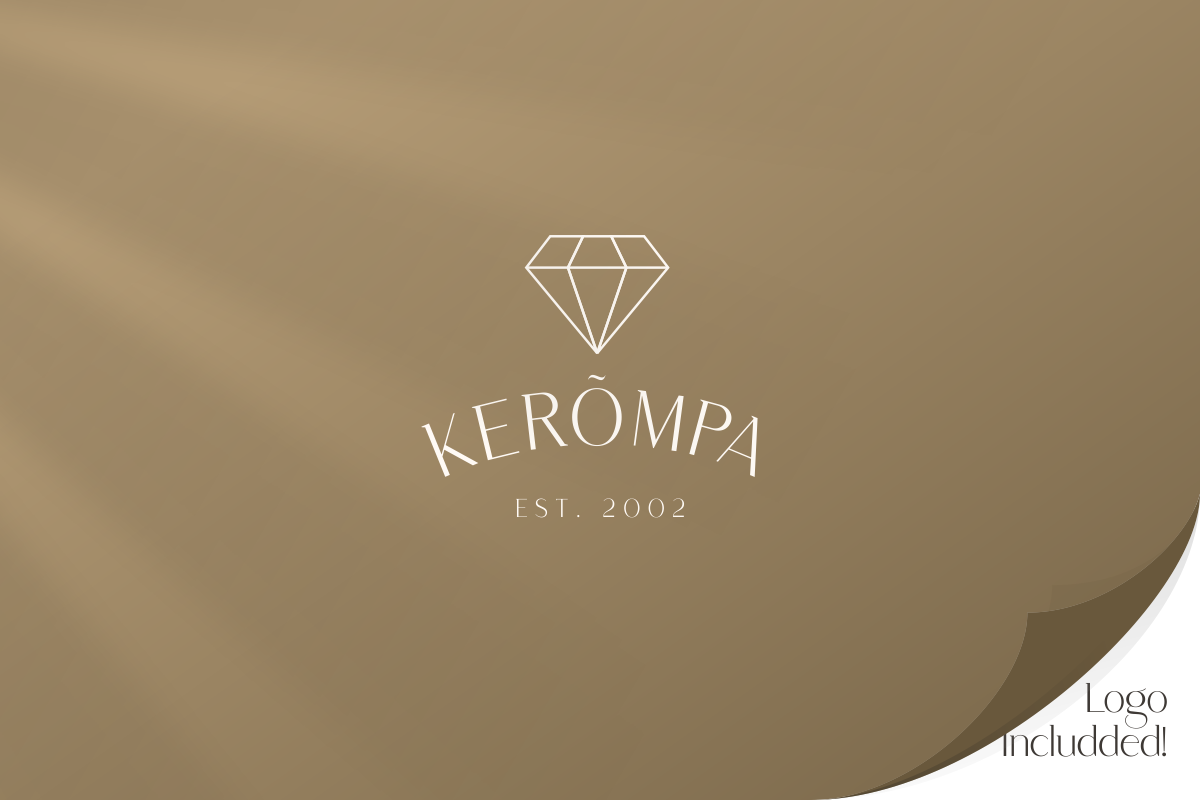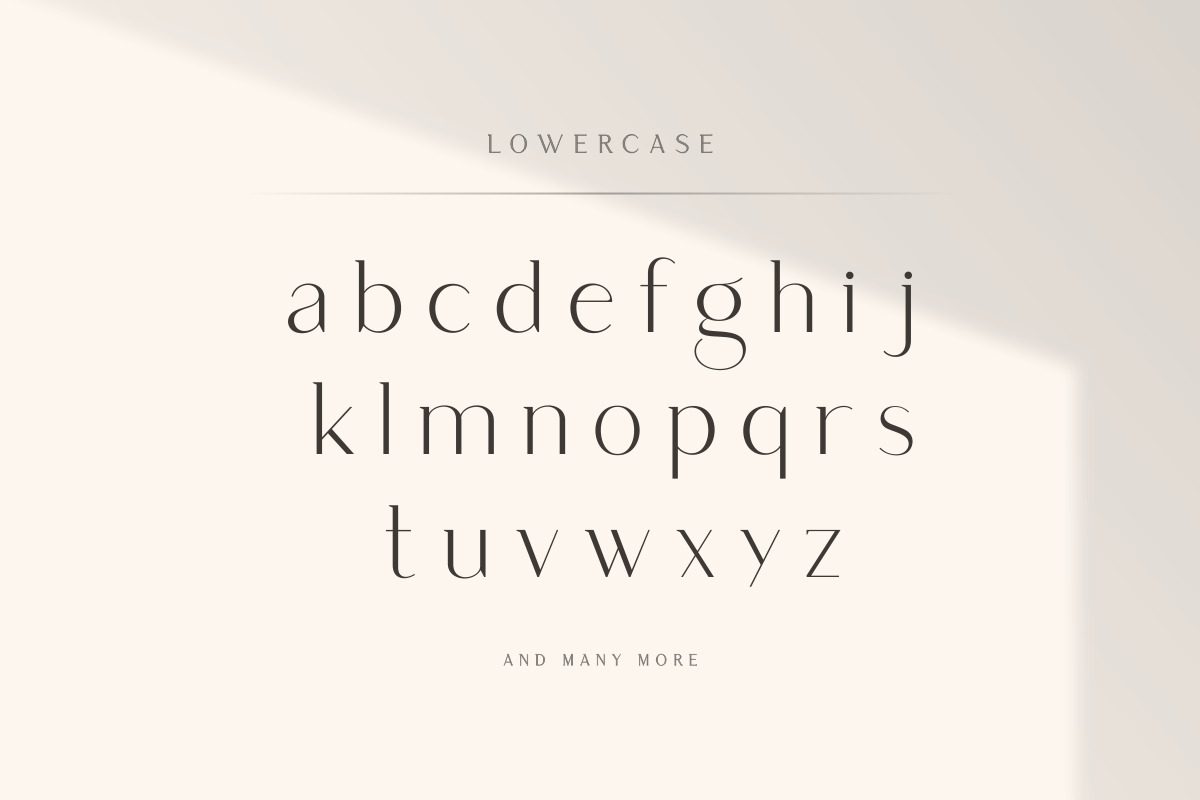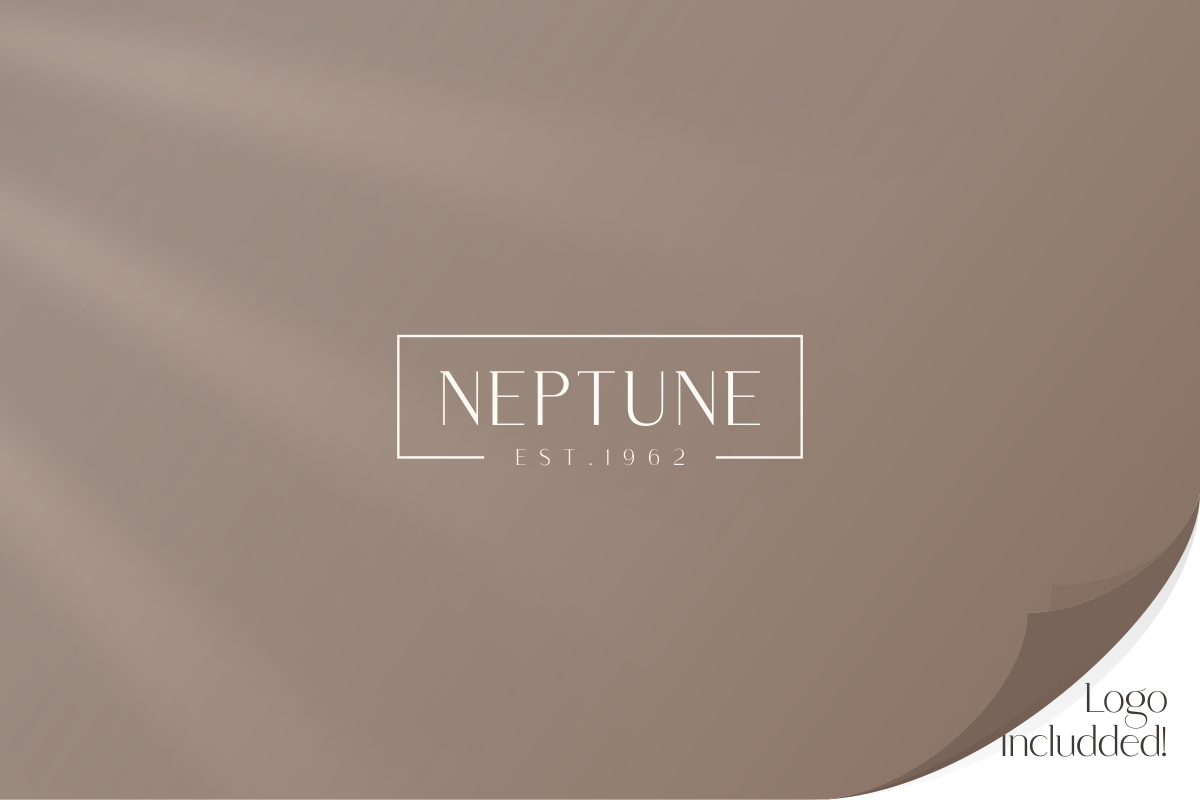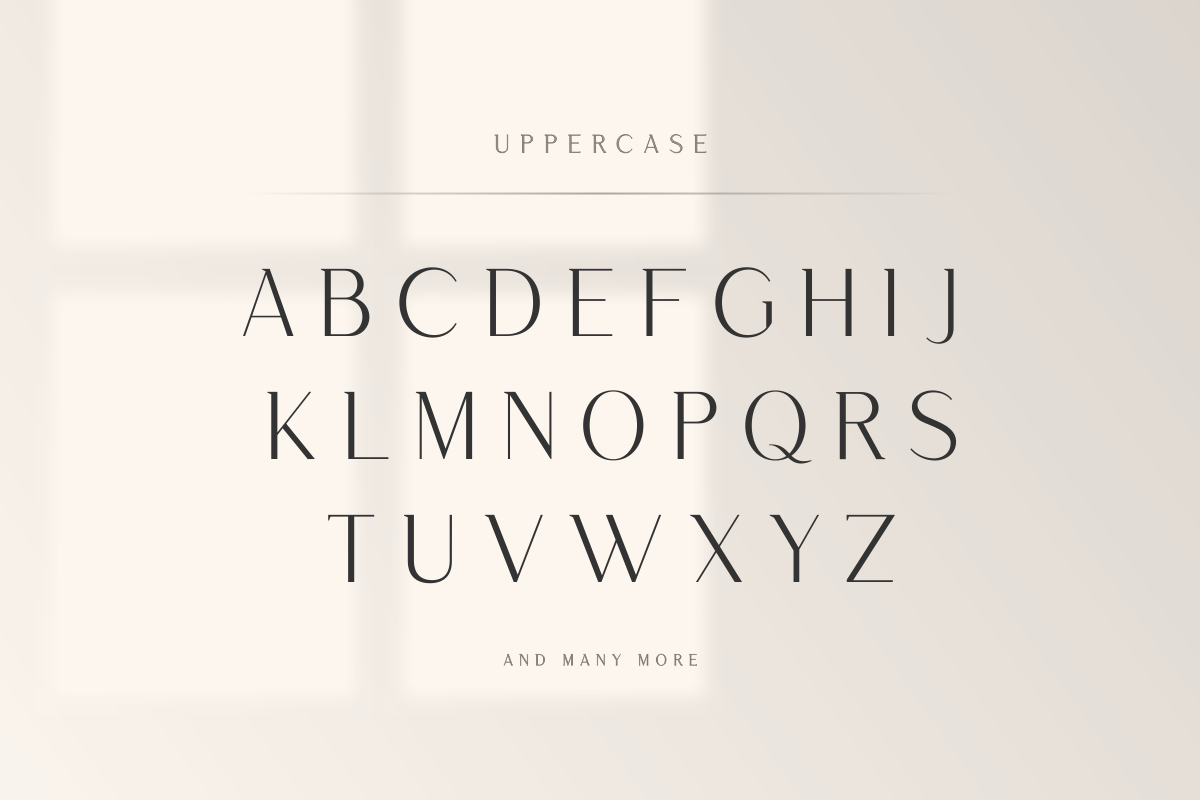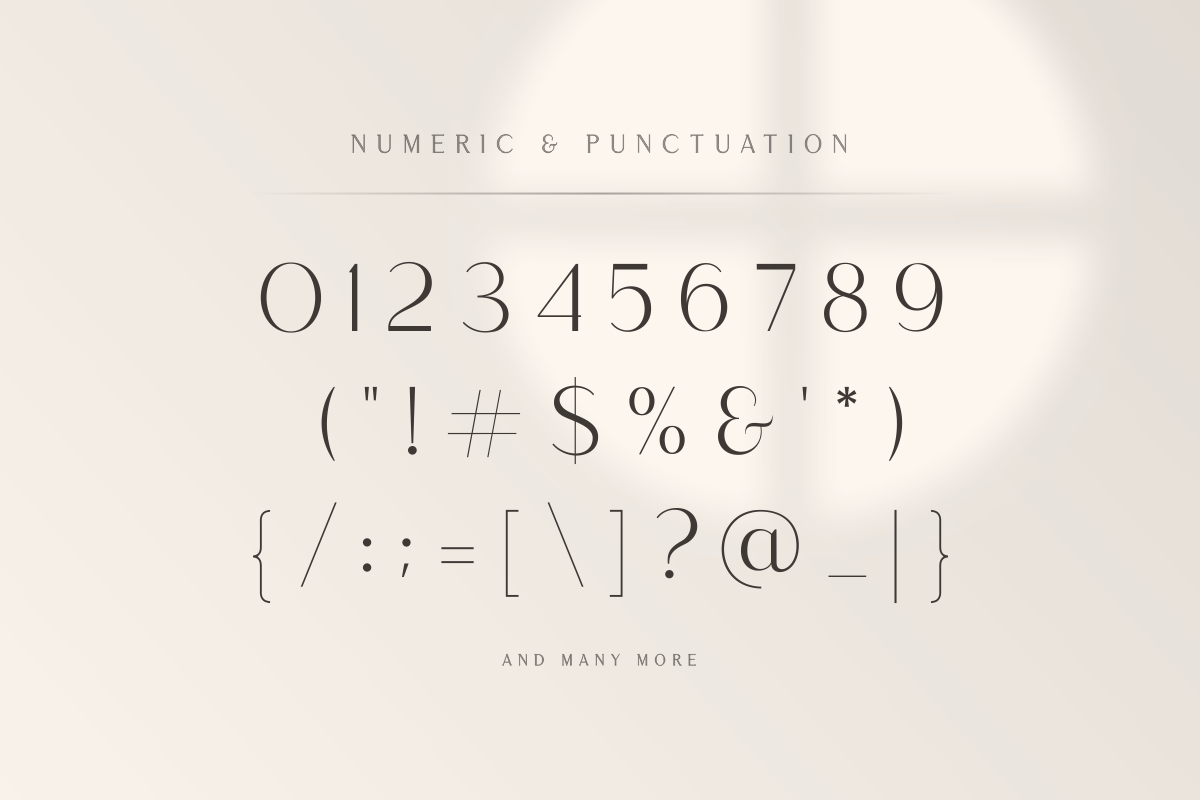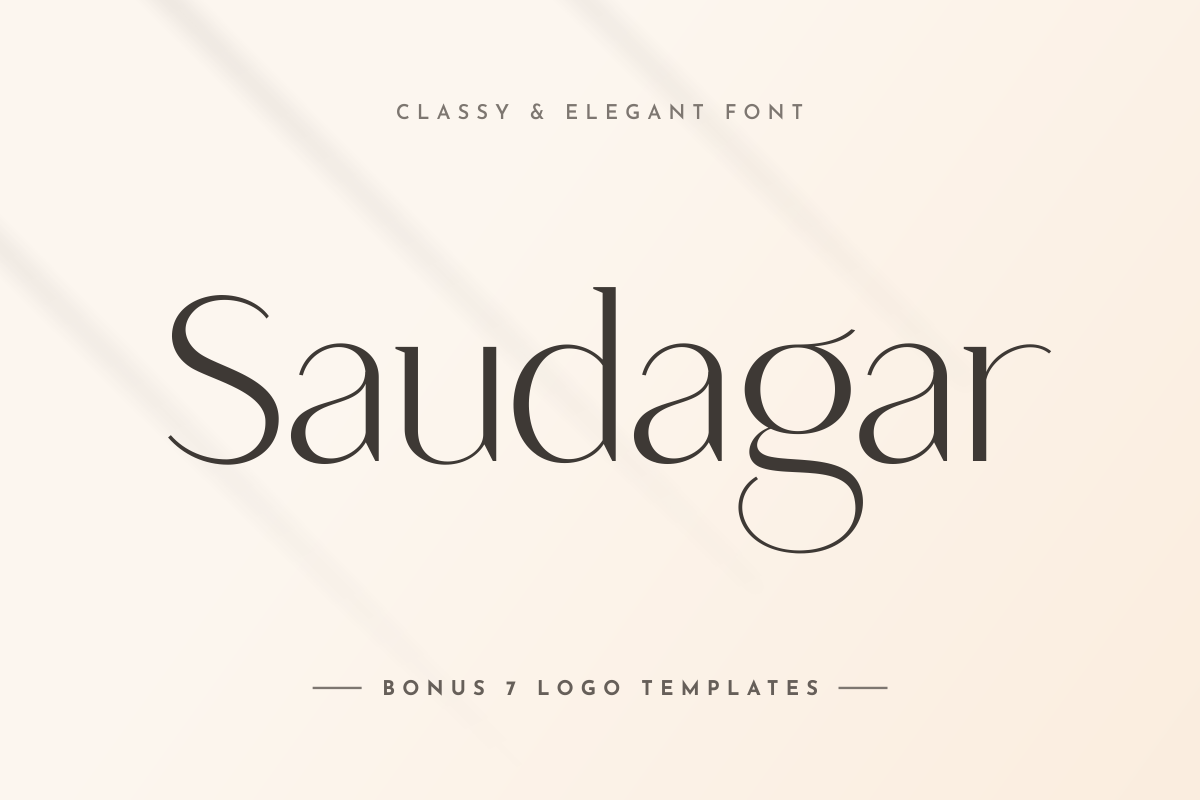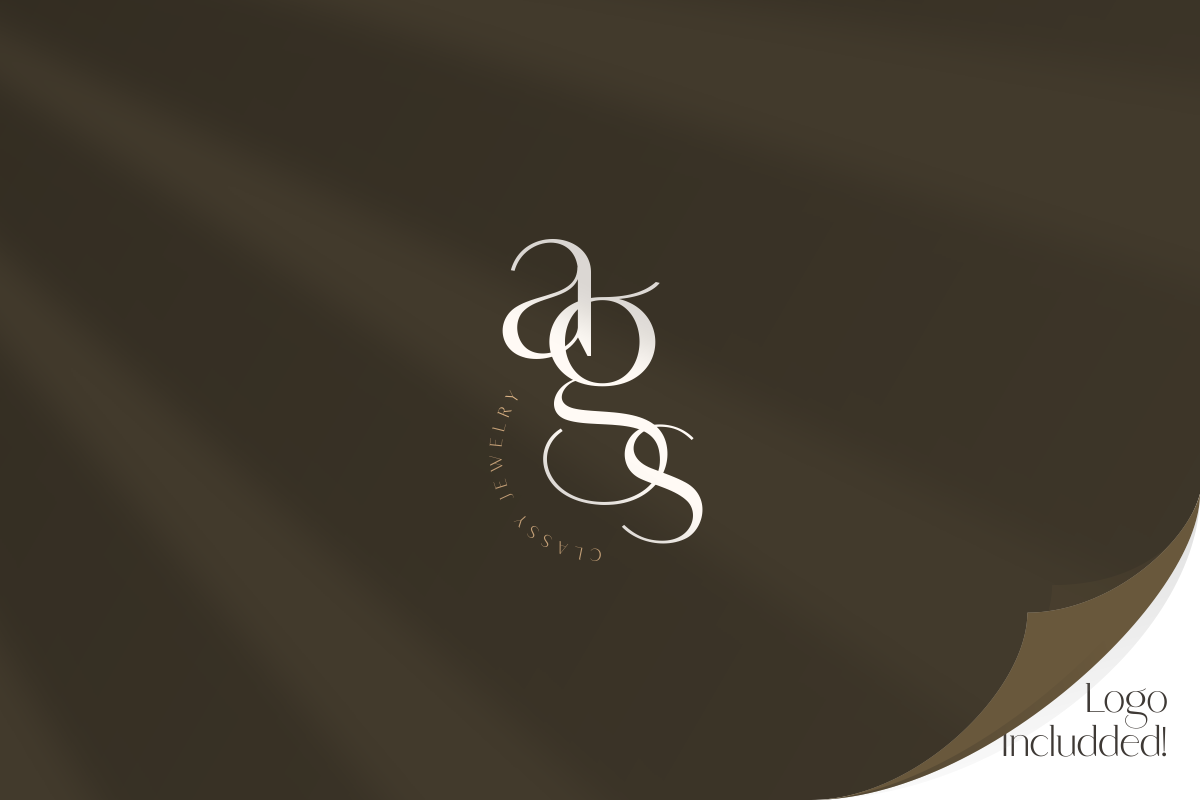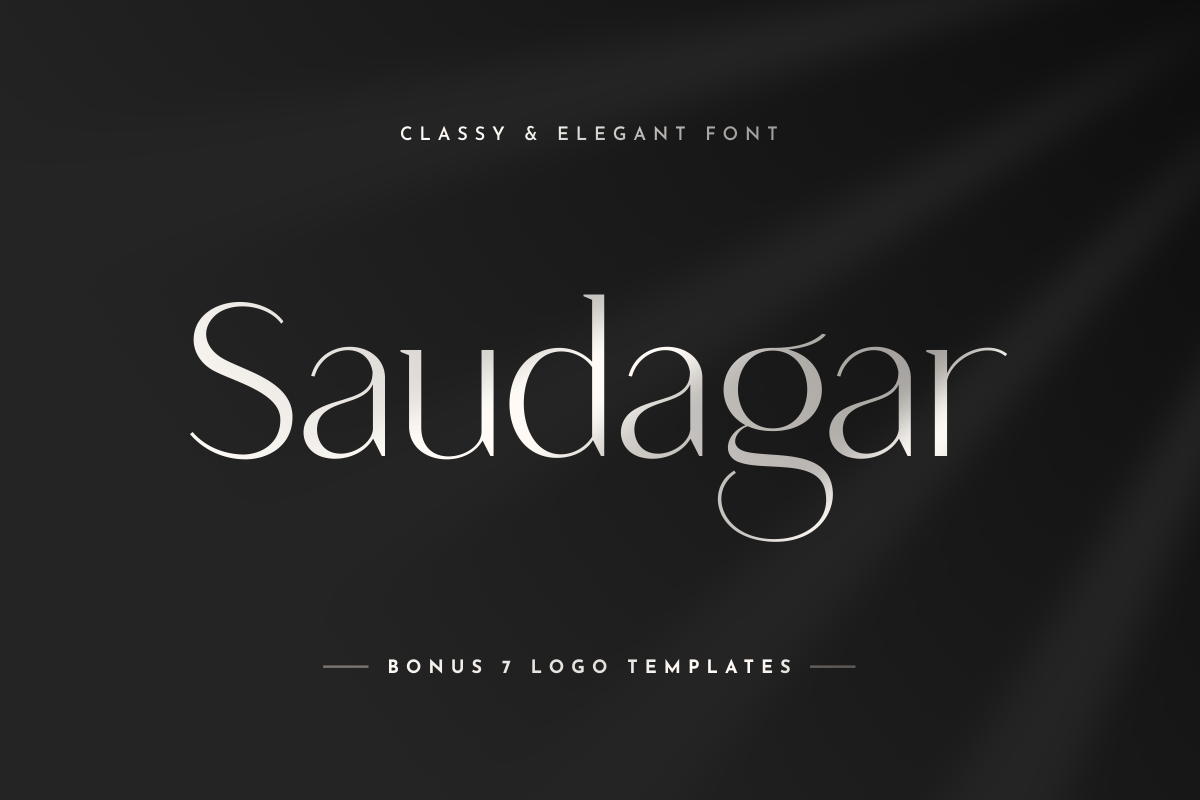
Saudagar Display Font + 7 Bonus Logo
Saudagar Classy & Elegant Display Font Update v2 is Ready!
Saudagar is a stylish modern calligraphy font with casual chic flair. It is perfect for branding, wedding invites and cards, and maybe for some project.
Saudagar includes a full set of gorgeous uppercase and lowercase letters, numerals, and alternates. What will you get?